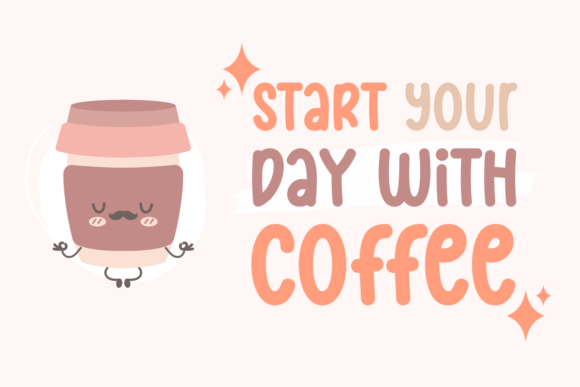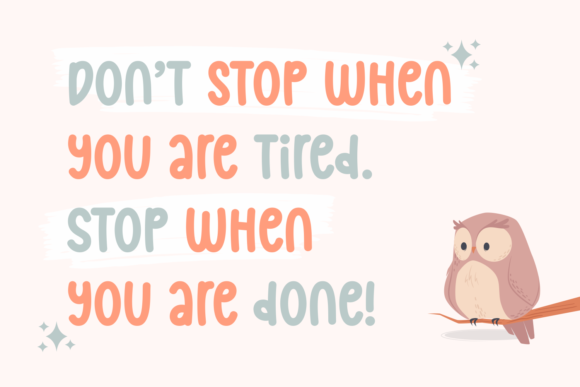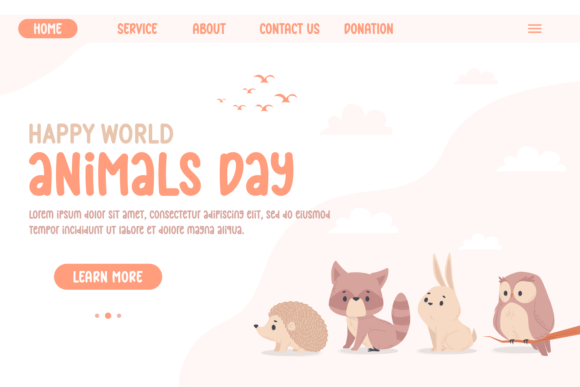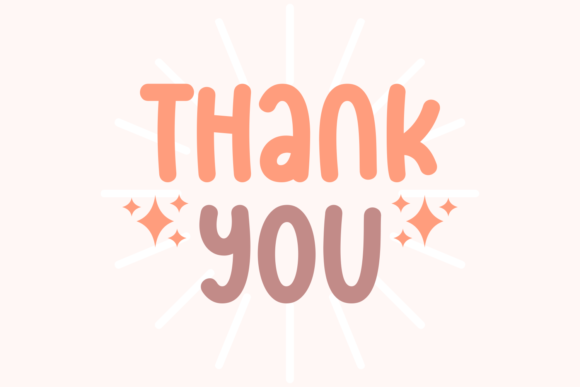
Introduction to Hello Mikaty Font
Hello Mikaty is a cute and simple handwritten font.
This original look will appeal to a wide range of crafty ideas, from letterheads and titles, to stationery .